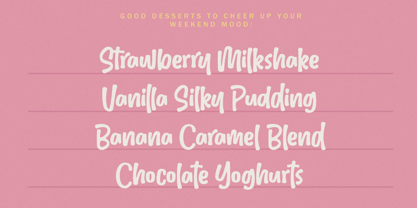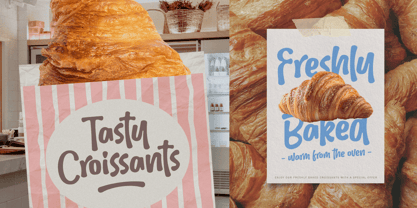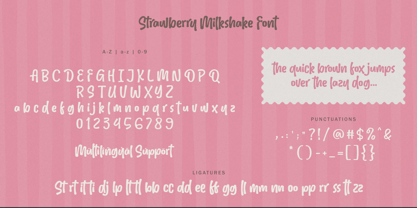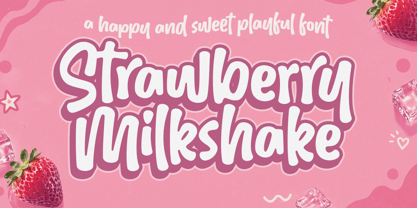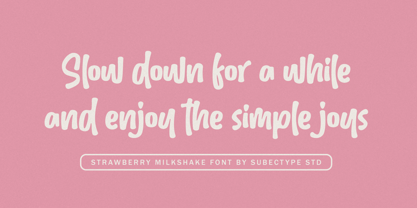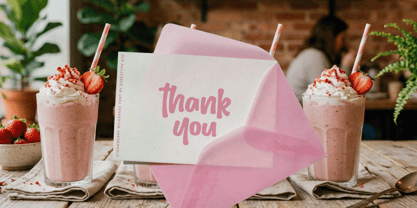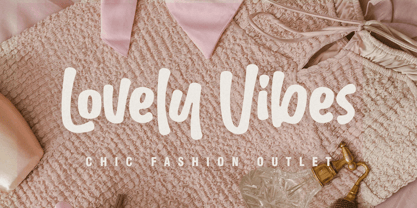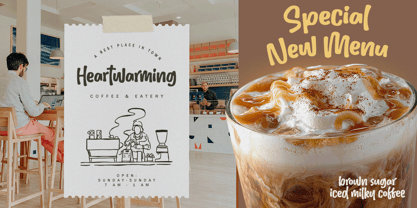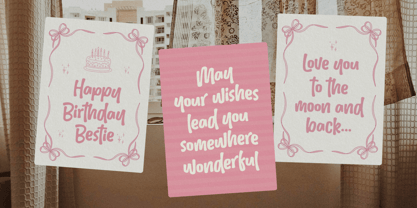
Strawberry Milkshake
par Subectype
La famille de polices Strawberry Milkshake a été conçue par Rangga Subekti et publiée par Subectype. Strawberry Milkshake contient 1 styles. En savoir plus sur cette famille
Introducing a handwritten font that captures the effortless beauty of natural handwriting. With its smooth strokes and relaxed rhythm, this typeface brings a friendly touch to any design from branding and packaging to wedding invites and social media quotes.
Casual yet refined, this font balances modern simplicity with classic warmth. Whether you're crafting a heartfelt message or creating stylish visuals, its timeless flow will always feel fresh, familiar, and beautifully human.